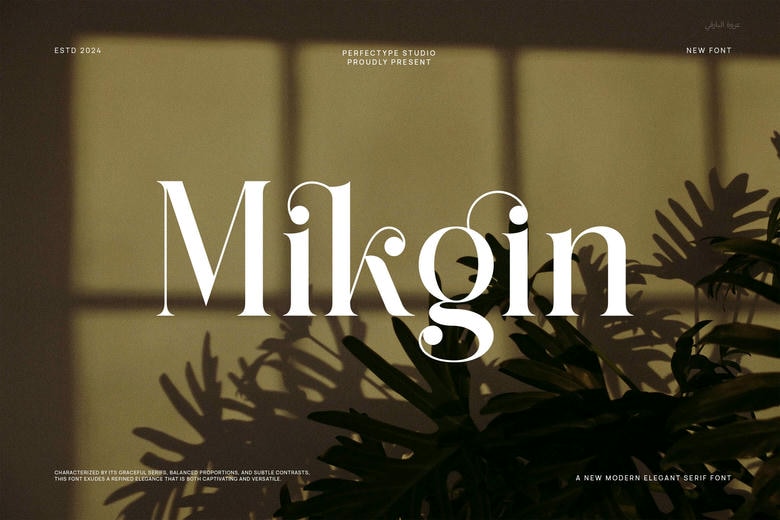
Mikgin Font
Mikgin is a serif font designed to bring elegance and luxury to your projects. It includes a variety of beautiful and unique ligatures, along with several alternate characters. This font works well for many uses, including branding, logos, social media posts, ads, labels, product packaging, photography, wedding designs, watermarks, invitations, and stationery. It is also easy to read, making it a great choice for any project.
Mikgin Serif Font